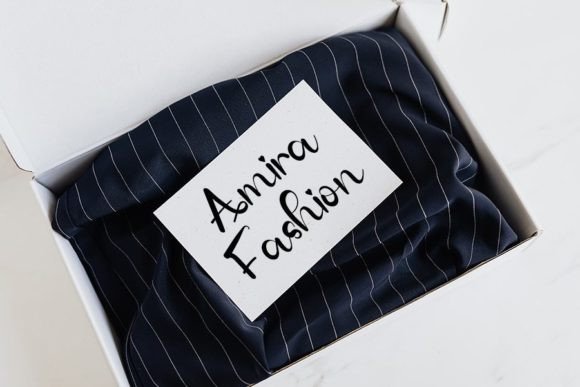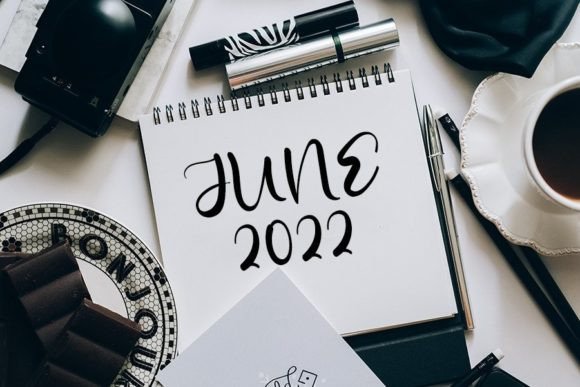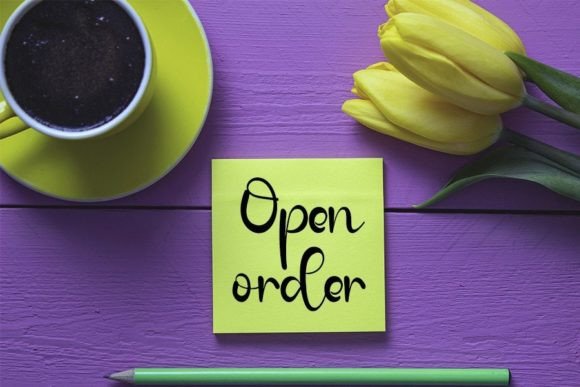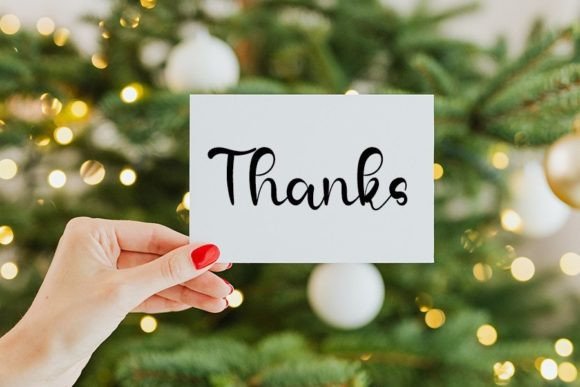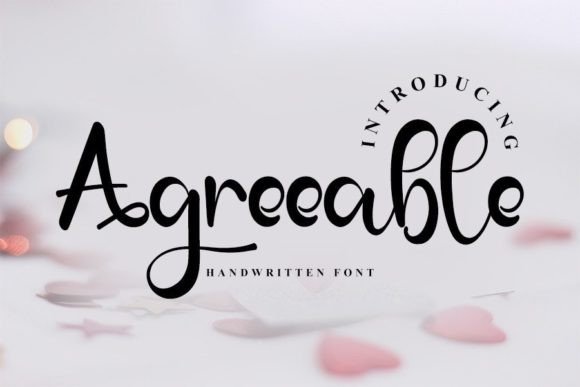
Discover the Charm of Agreeable Font: Elevate Your Designs with Elegance
Are you on the hunt for a font that exudes elegance and sophistication? Look no further than Agreeable Font, a stunning handwritten font that is sure to capture your heart. With its unique blend of classic charm and modern flair, Agreeable is the perfect addition to any design project. In this article, we’ll dive into the world of Agreeable Font, exploring its features, benefits, and uses, as well as provide tips on how to make the most of this beautiful font.
What is Agreeable Font?
Agreeable Font is a meticulously crafted handwritten font that boasts an elegant touch, making it ideal for a wide range of projects. Its distinct and timeless style is sure to leave a lasting impression on your audience. Whether you’re a designer, craftsperson, or simply a DIY enthusiast, Agreeable Font is the perfect choice for anyone looking to add a touch of sophistication to their work.
Key Features of Agreeable Font
- Handwritten with love: Agreeable Font is a carefully handcrafted font, giving it a unique and personal touch.
- Elegant and refined: With its classic lines and flowing curves, Agreeable Font exudes elegance and sophistication.
- Timeless style: This font’s timeless design ensures it will remain relevant for years to come, making it a valuable addition to your font library.
- Versatile: Agreeable Font is suitable for a wide range of projects, from branding and advertising to crafting and scrapbooking.
Benefits of Using Agreeable Font
So, why choose Agreeable Font for your next project? Here are just a few benefits of using this beautiful font:
- Adds a personal touch: Agreeable Font’s handwritten nature gives your designs a personal and human touch, setting them apart from more generic fonts.
- Enhances brand identity: With its elegant and refined style, Agreeable Font can help elevate your brand’s identity and create a lasting impression on your audience.
- Easy to read: Despite its ornate appearance, Agreeable Font is surprisingly easy to read, making it perfect for body text and headlines.
- Supports multiple languages: Agreeable Font supports multiple languages, making it a great choice for international brands and designers.
Using Agreeable Font in Your Designs
Now that we’ve explored the features and benefits of Agreeable Font, let’s discuss how to incorporate it into your designs. Here are a few ideas to get you started:
- Branding and logos: Use Agreeable Font to create a unique and memorable logo that reflects your brand’s personality.
- Wedding and event planning: Agreeable Font is perfect for wedding invitations, save-the-dates, and other event materials, adding a touch of romance and elegance.
- Crafting and scrapbooking: Add a personal touch to your crafting and scrapbooking projects with Agreeable Font, perfect for journaling and titles.
- Digital marketing: Use Agreeable Font in your digital marketing materials, such as social media graphics and email newsletters, to create a cohesive brand identity.
Tips for Getting the Most Out of Agreeable Font
To make the most of Agreeable Font, here are a few tips to keep in mind:
- Experiment with font sizes: Agreeable Font looks great in a variety of font sizes, so don’t be afraid to experiment to find the perfect size for your project.
- Pair with complementary fonts: Combine Agreeable Font with complementary fonts to create a unique and visually appealing typography scheme.
- Use it sparingly: While Agreeable Font is beautiful, it’s best used sparingly to avoid overwhelming your design.
| Font Name | Agreeable Font |
| Author | Kongsi.Co |
In conclusion, Agreeable Font is a stunning handwritten font that is sure to elevate your designs with its elegant and refined style. With its timeless design, versatility, and ease of use, Agreeable Font is the perfect addition to any design project. Whether you’re a designer, craftsperson, or simply a DIY enthusiast, Agreeable Font is sure to capture your heart and inspire your creativity.